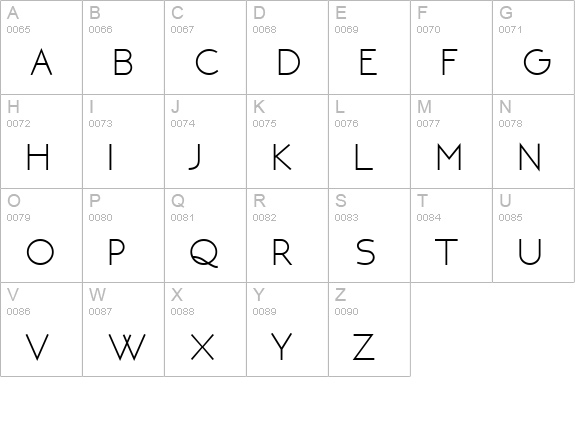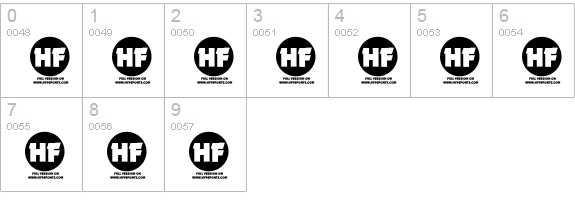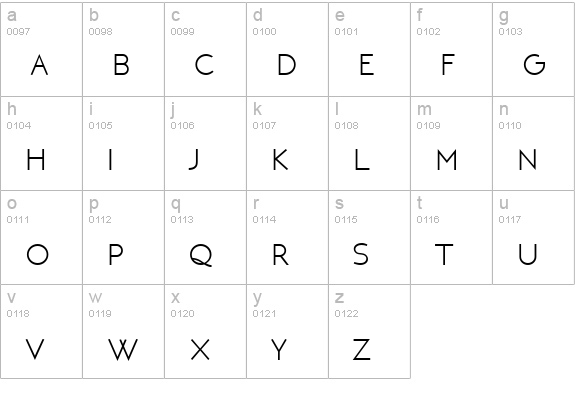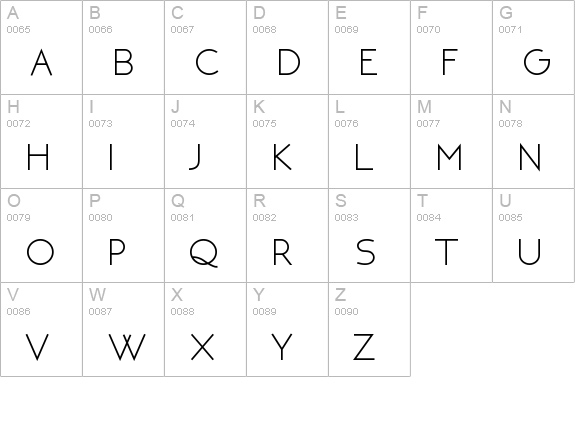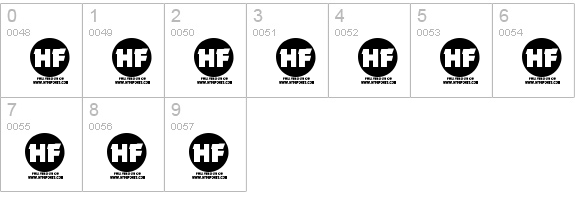
NEOTERIC Font Details
Introducing NEOTERIC font, a modern and elegant typeface that embodies the essence of innovation and sophistication. With its sleek lines and contemporary design, NEOTERIC is the perfect choice for those seeking a font that effortlessly combines professionalism and style. This stunning font offers a wide range of weights and styles, providing endless possibilities for your creative projects. Whether you're designing a logo, crafting a magazine layout, or creating eye-catching social media graphics, NEOTERIC will elevate your work to new heights. What sets NEOTERIC apart is not only its striking aesthetics but also its versatility. From bold and impactful headlines to refined and legible body text, this font adapts seamlessly to any design context. Its clean and crisp letterforms ensure optimal readability, making it an ideal choice for both print and digital media. And the best part? NEOTERIC is available for free! You can easily download this incredible font at FontsMarket.com, a trusted source for high-quality fonts. Don't miss out on the opportunity to enhance your creative endeavors with this exceptional typeface without spending a dime. Unleash your creativity and make a statement with NEOTERIC font. Its modern charm and unparalleled versatility will undoubtedly captivate your audience and leave a lasting impression. Download NEOTERIC now and experience the freedom of expressing your unique vision with this remarkable font.